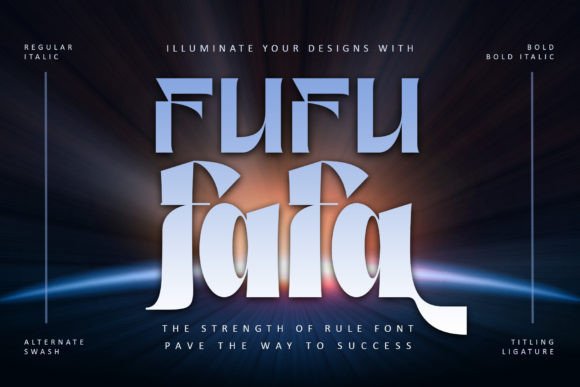
Discover the Elegance and Playfulness of Fufufafa Font
In the realm of typography, few fonts manage to strike a balance between sophistication and playfulness. However, Fufufafa Font is an exception—a versatile serif font family that brings together the best of both worlds. With its classic elegance and modern appeal, Fufufafa offers designers a powerful tool to elevate their projects. Whether you’re working on branding, editorial layouts, or any other design endeavor, Fufufafa provides the perfect blend of refinement and charm.
Exploring the Fufufafa Font Family
Fufufafa Font comes in a variety of styles to cater to different design needs. The font family includes regular, italic, bold, and bold italic versions, ensuring that you have the flexibility to choose the perfect style for your project. This range of styles allows you to maintain consistency across various design elements while experimenting with different tones and moods.
- Regular: Ideal for body text and general design applications where a classic, straightforward look is desired.
- Italic: Adds a touch of elegance and is perfect for emphasizing certain parts of the text or creating a sophisticated feel.
- Bold: Great for headlines, titles, and any section where you want to draw attention.
- Bold Italic: Combines the assertiveness of the bold style with the elegance of the italic, ideal for making a strong yet refined statement.
This extensive range of styles ensures that Fufufafa can be used across a wide array of projects, from print materials like brochures and magazines to digital content such as websites and social media graphics.
The Perfect Balance of Classic Elegance and Modern Appeal
What sets Fufufafa apart from other serif fonts is its unique blend of classic elegance and modern appeal. The font’s serif design pays homage to traditional typography, offering a sense of timelessness and reliability. At the same time, its clean lines, balanced proportions, and subtle nuances give it a contemporary feel that aligns well with modern design trends.
This balance makes Fufufafa incredibly versatile. For instance, it can be used in editorial layouts to add a touch of sophistication and professionalism. In branding, Fufufafa can help create a memorable and distinctive identity that stands out in a crowded market.
Application in Design Projects
Fufufafa’s adaptability makes it suitable for a wide range of design applications:
- Editorial Layouts: Use Fufufafa for articles, magazines, and books to create an engaging and professional reading experience.
- Branding: Establish a strong brand presence with Fufufafa’s distinctive and elegant style.
- Web Design: Enhance your website’s typography with Fufufafa, making your content more readable and visually appealing.
- Print Materials: From business cards to posters, Fufufafa brings a level of sophistication and charm to any printed material.
PUA Encoding for Easy Access to Unique Glyphs and Swashes
Fufufafa Font also features PUA (Private Use Area) encoding, which provides designers with easy access to a variety of unique glyphs and swashes. This means you can add an extra layer of creativity and distinctiveness to your projects without needing additional software or complicated workarounds.
The inclusion of unique glyphs and swashes allows for greater customization and personalization. You can use these elements to:
- Highlight specific words or phrases
- Add decorative touches to your designs
- Create a more engaging and dynamic visual experience
This feature is particularly useful for designers looking to push the boundaries of conventional typography and create something truly unique.
Elevate Your Designs with Fufufafa
Incorporating Fufufafa Font into your design projects can significantly elevate the quality and impact of your work. Its timeless and adaptable character ensures that your designs remain relevant and appealing for years to come.
By choosing Fufufafa, you’re not just selecting a font; you’re embracing a design philosophy that values elegance, versatility, and creativity. Whether you’re a seasoned designer or just starting out, Fufufafa provides the tools you need to bring your vision to life.
Fufufafa Font stands out in the world of typography for its masterful blend of sophistication and playful charm. With its versatile font family, including regular, italic, bold, and bold italic styles, Fufufafa offers endless flexibility for designers. Its perfect balance of classic elegance and modern appeal makes it suitable for a wide range of applications, from branding to editorial layouts.
Furthermore, the inclusion of PUA encoding and access to unique glyphs and swashes provide designers with the tools to add refined detail and distinctive flair to their projects. By incorporating Fufufafa into your design workflow, you can elevate your projects and create visually stunning, memorable, and impactful designs.
Step into the world of creativity with Fufufafa Font, and discover how this versatile serif font family can transform your designs and help you achieve your creative goals.